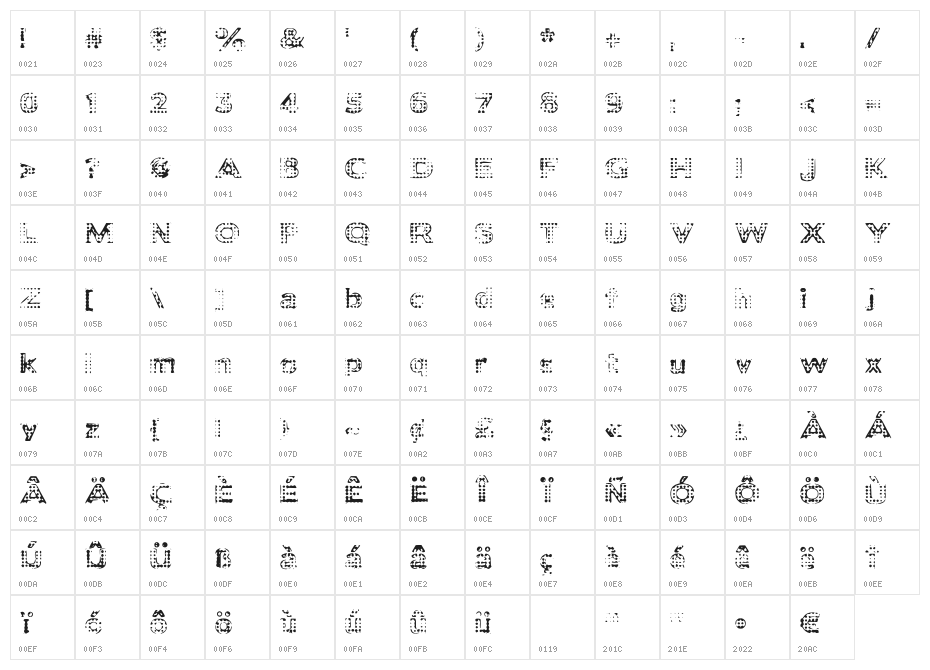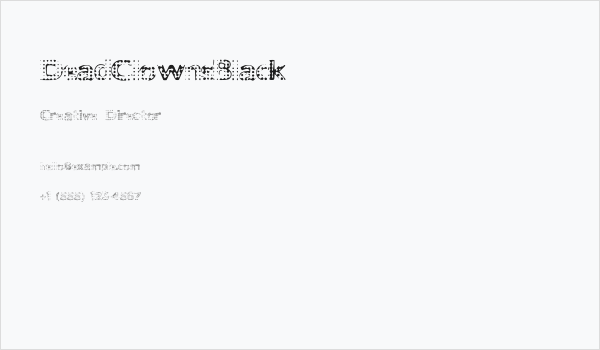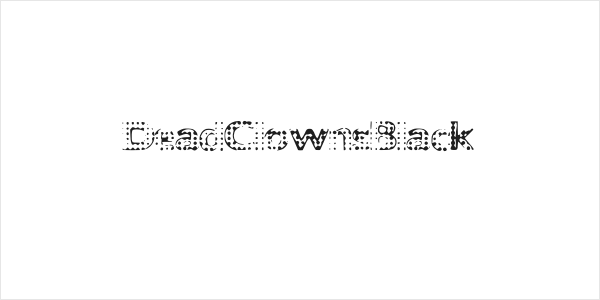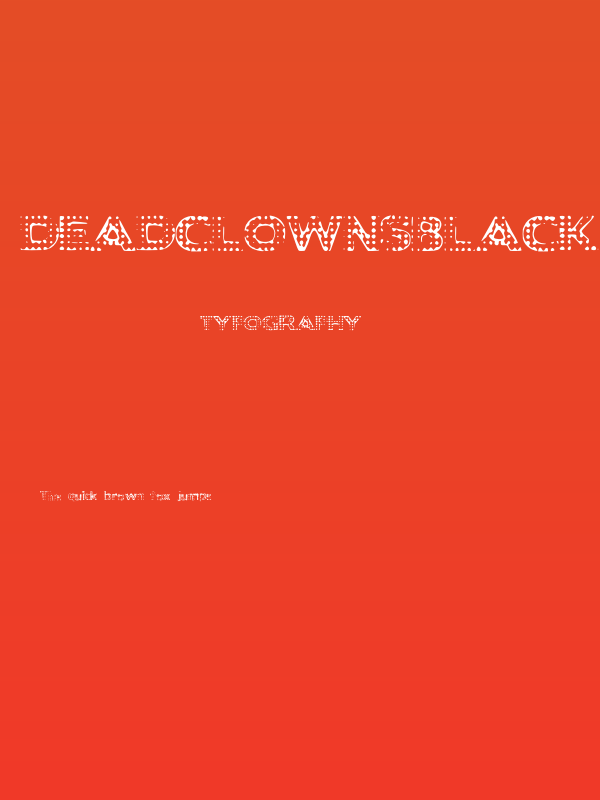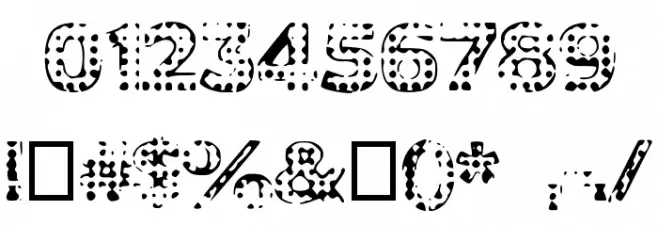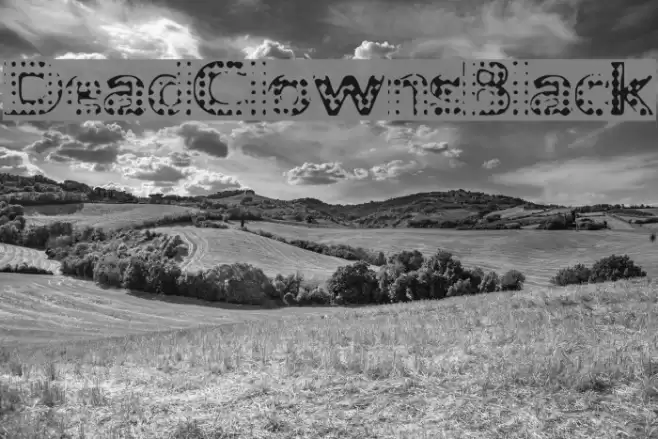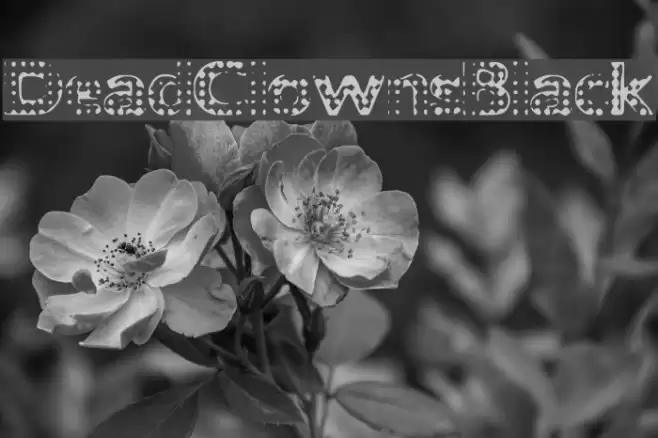
DeadClownsBlack Font
This font features a unique and playful design with a dotted pattern that creates a whimsical and eye-catching effect. The characters are bold and have a decorative style, making them stand out with a distinct visual appeal. The uppercase and lowercase letters maintain a consistent style, while the numbers and special characters follow the same dotted theme. The overall look is both modern and artistic, suitable for creative projects that require a fun and engaging typeface.
| Proposed Projects | Ideal for party invitations, children's book covers, playful branding, and creative posters. |